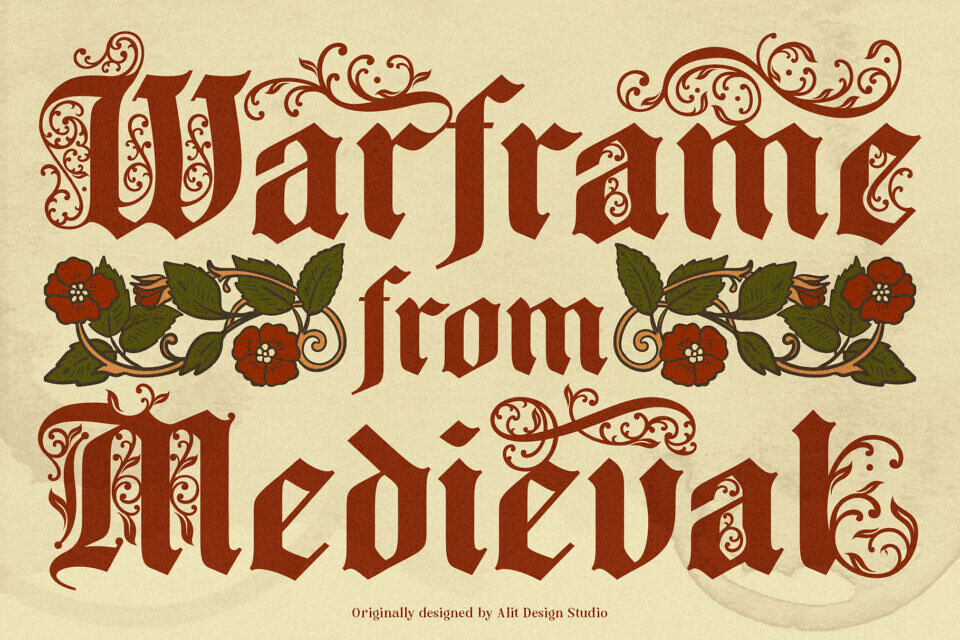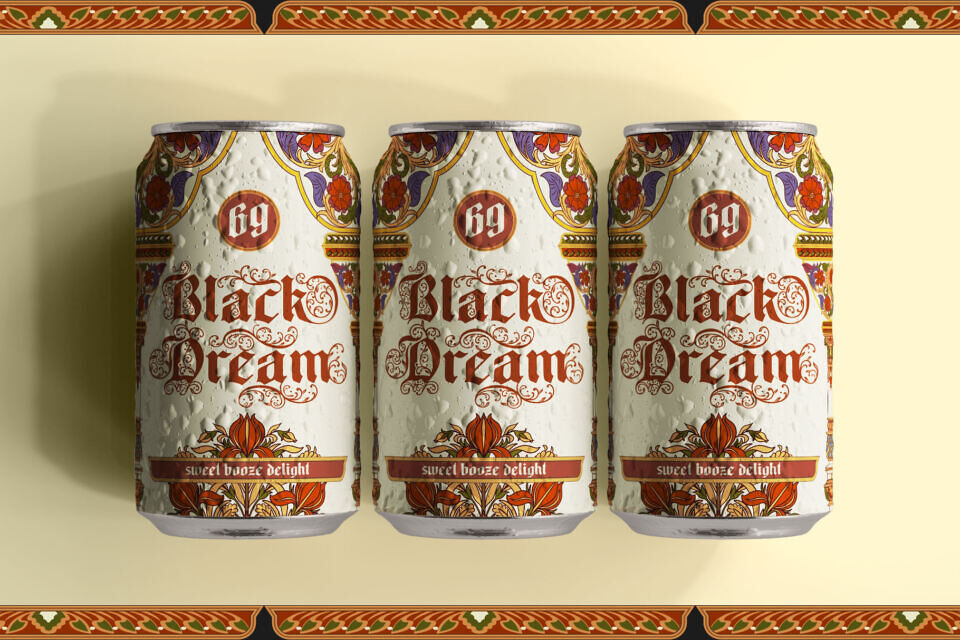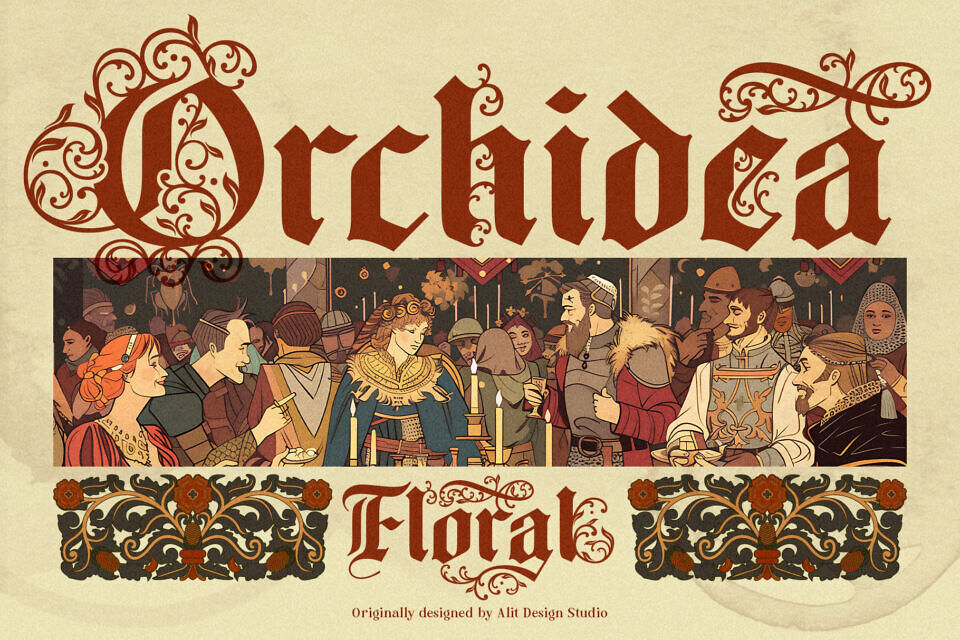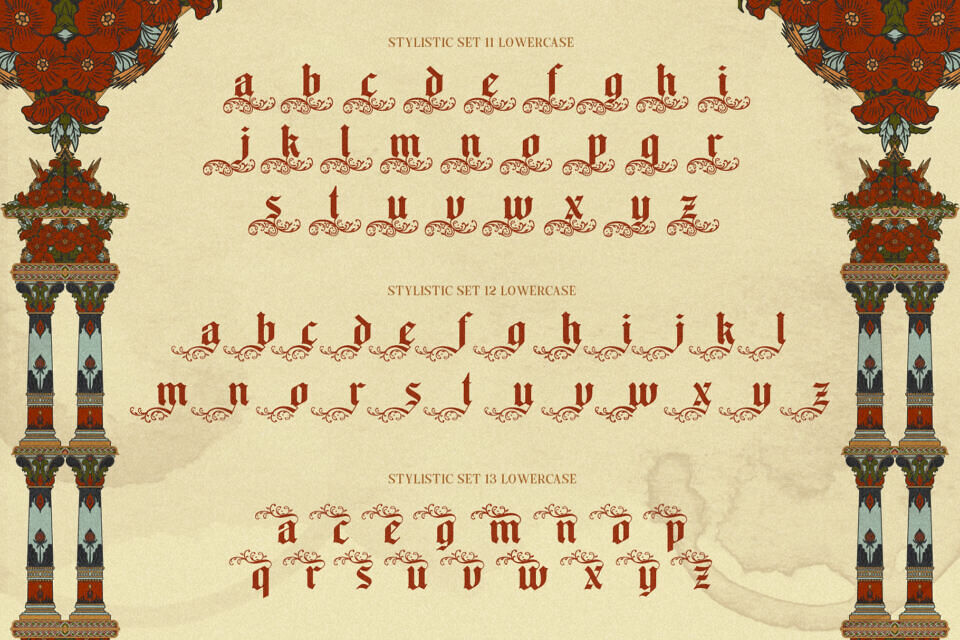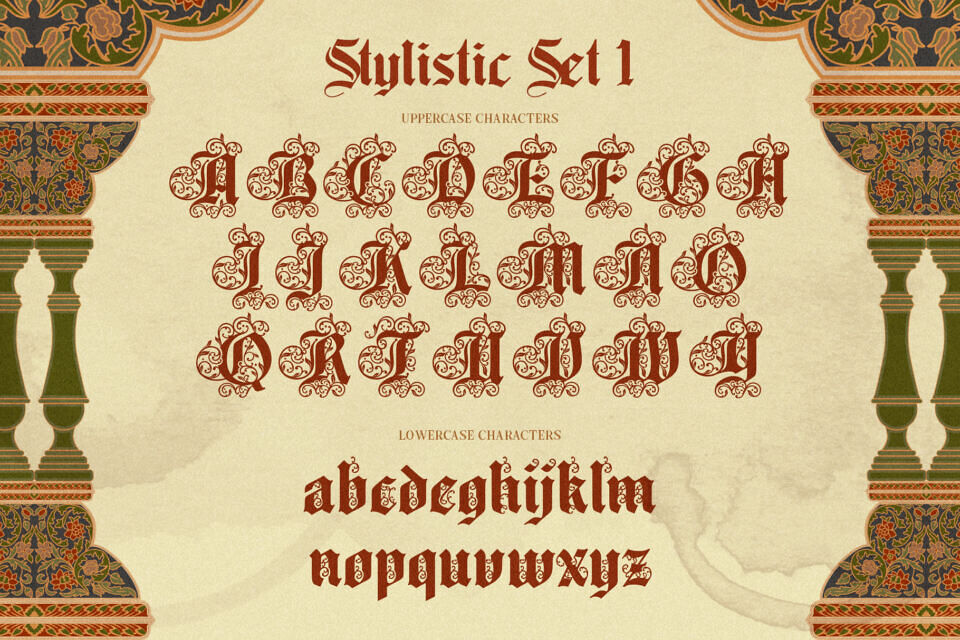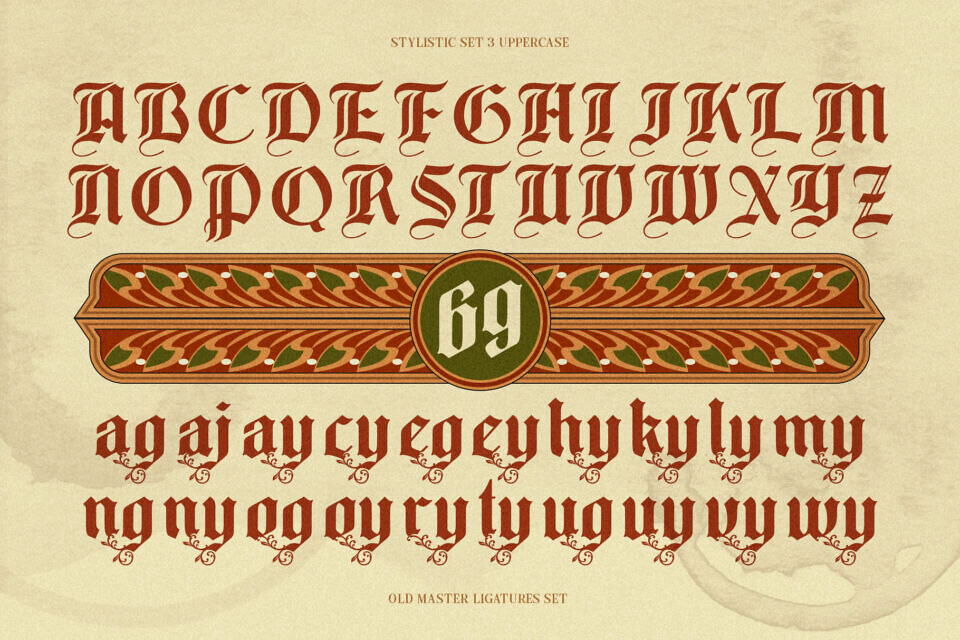
Old Master Typeface is a lavishly detailed blackletter font that brings the grandeur of medieval script and Renaissance ornamentation into the modern era. Drawing inspiration from classic calligraphy and historical lettering traditions, this typeface is designed to evoke prestige, elegance, and old-world craftsmanship in every stroke.
Featuring exquisite ornamental flourishes woven directly into its letterforms, Old Master is not just a font—it’s a celebration of visual storytelling. From elaborate uppercase characters adorned with curls and leaf-like accents to the sharply defined lowercase set, every letter has been carefully sculpted to balance legibility with artistic expression.
Whether you’re designing book covers, vintage packaging, theatrical posters, wedding stationery, or branding for high-end products, Old Master adds a powerful sense of history and drama to your work.